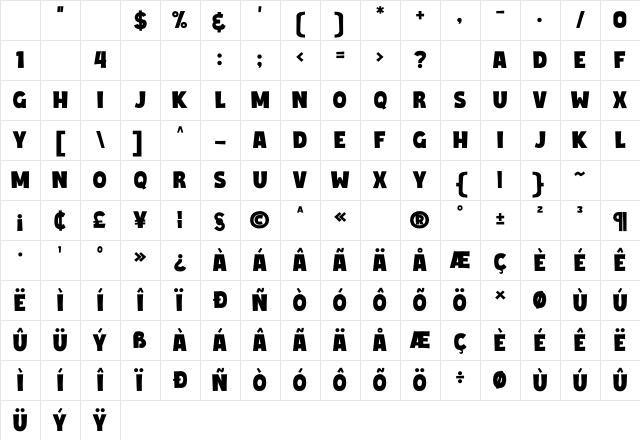
Mighty Sans Regular Free Font
Mighty Sans Regular
Foundry: Gassstype￿ Studio
Designer: Anang F & Malik Wsn | Gassstype￿ Studio 2023
Design Context for Mighty Sans
Mighty Sans is a composed and adaptable typeface that performs quietly and consistently across a wide range of design contexts.